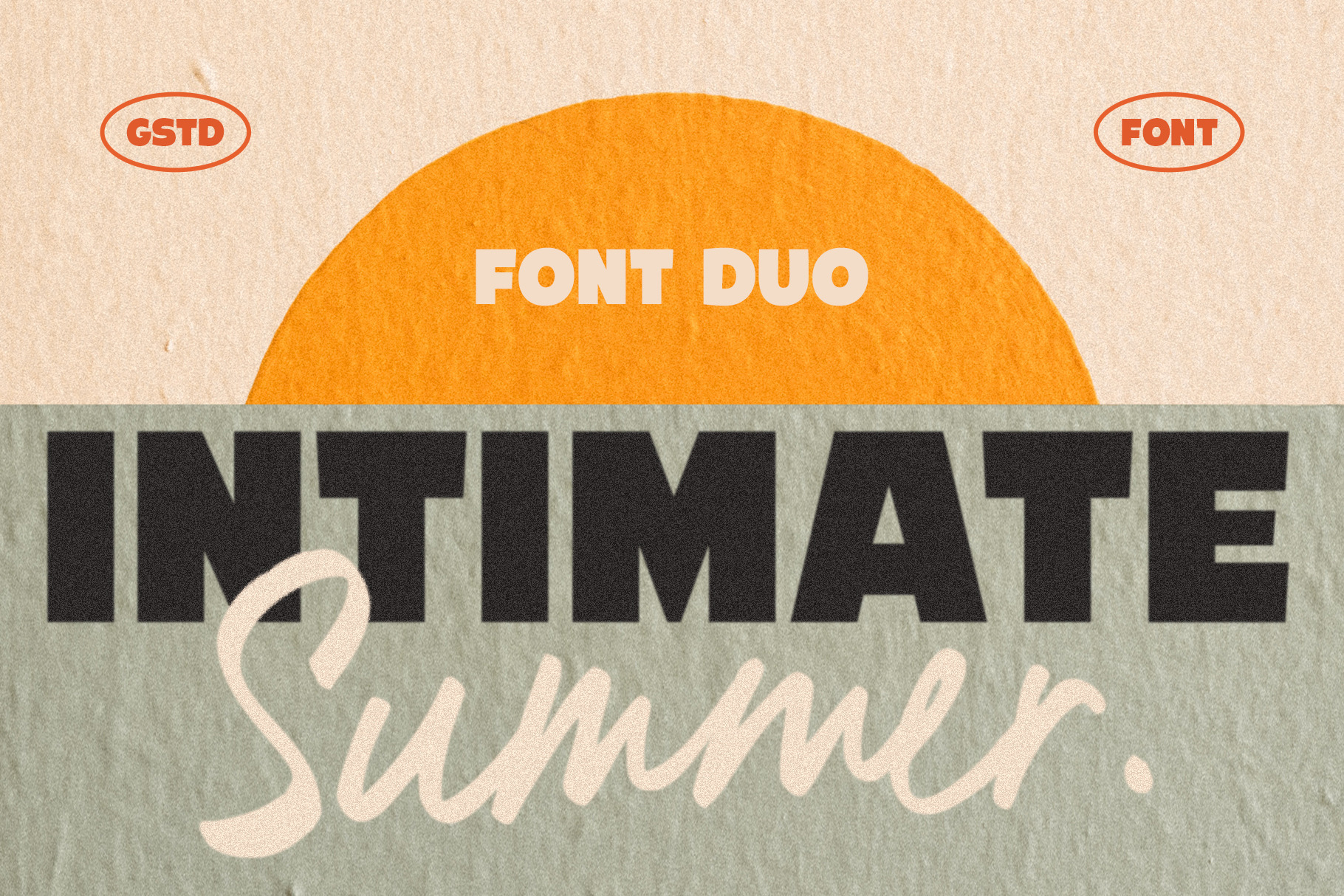
Intimate Summer Font Duo
Introducing Intimate Summer Font Duo, featuring a strong and bold sans font alongside a casual handwriting-inspired script font. This duo is a perfect combination that brings harmony and versatility to your creative projects.
The bold sans font exudes strength and confidence with its clean lines and thick letterforms. It commands attention and adds a modern and retro touch to any design.
Complementing the bold sans is the casual script font, which mimics the relaxed style of handwritten text. This script font brings a unique and free-spirited atmosphere to your typographic compositions.
Together, this font duo offers an ideal balance between strength and casualness, making it a versatile choice for a variety of design applications. Whether you're designing logos, branding materials, invitations, or editorial layouts, this font duo is a captivating combination that adds an irreplaceable casual touch to your projects.